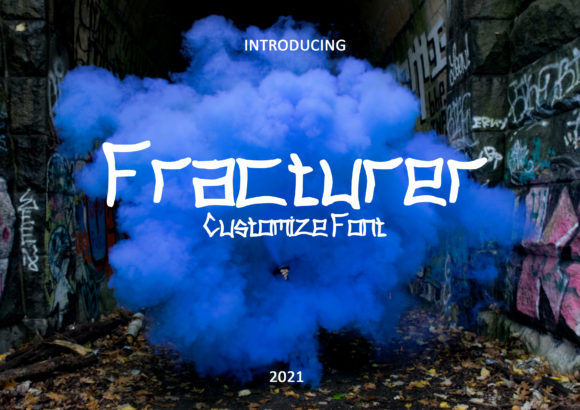
Are you ready to unleash your creativity and make a lasting impression? Introducing Fracturer Font, the ultimate display font that will transform your designs into captivating masterpieces.
Step into a world of squared letters and quirky charm, where Fracturer Font reigns supreme. Its bold and playful presence will make your branding, packaging, and invitations stand out from the crowd. Let your words dance across the page, leaving an unforgettable mark on every beholder.
Whether you're crafting a captivating quote, designing a stylish t-shirt, or creating an eye-catching label, Fracturer Font is your secret weapon. It's the perfect choice for logos that scream uniqueness and personality.
Immerse yourself in endless possibilities with Fracturer Font. Its versatility knows no bounds, allowing you to craft designs that are as unique as your imagination. From web design to print, this font will add a touch of whimsy and sophistication to every project you undertake.